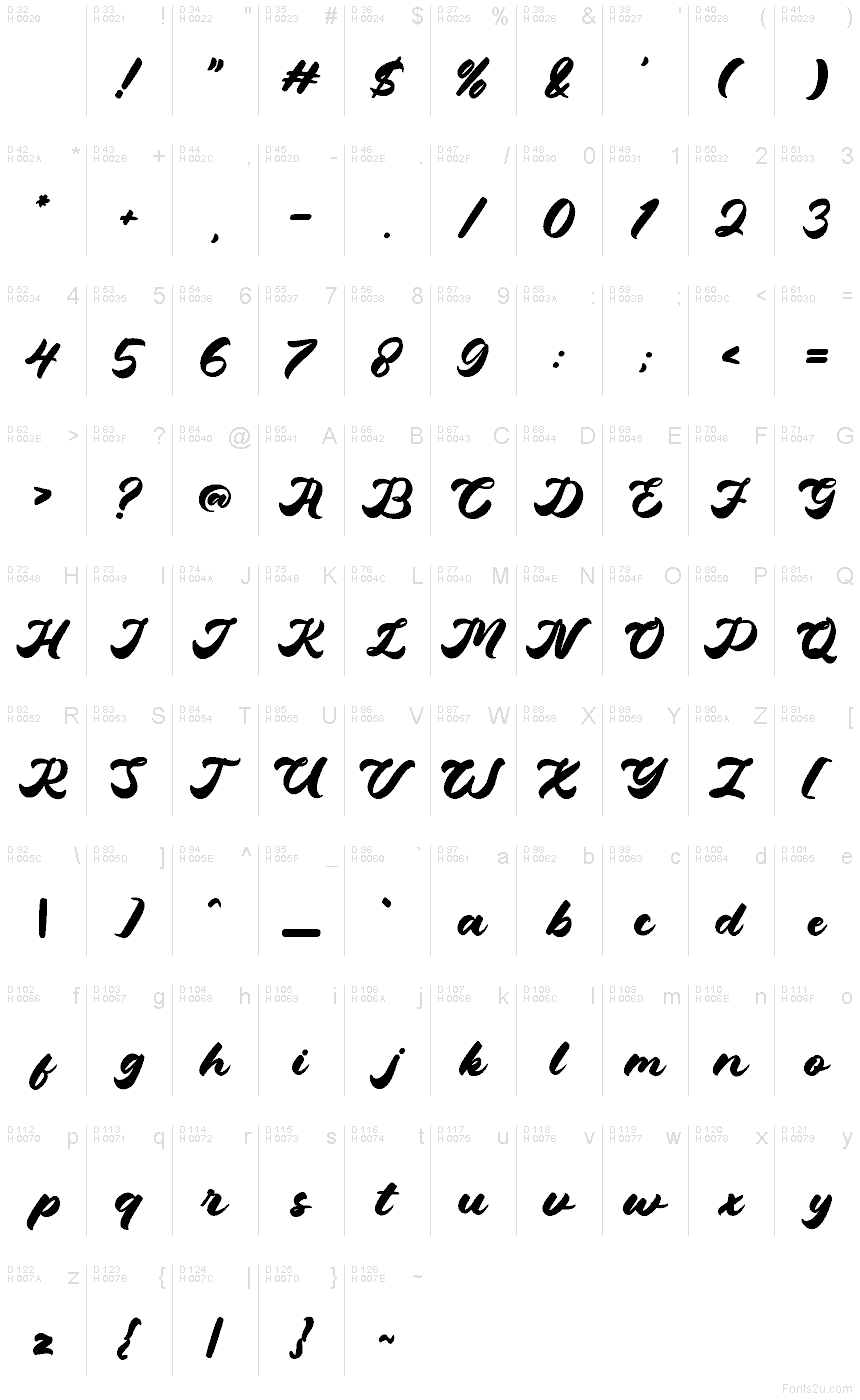
Hetigon Vintage
Hetigon Vintage font by Rahagita Studio combines classic elegance with a playful, contemporary twist. This free brush font embodies a nostalgic charm while maintaining a dynamic and expressive presence. Characterized by bold, flowing curves that capture attention effortlessly, it is perfect for those who want their design to stand out with a distinct identity and personality.